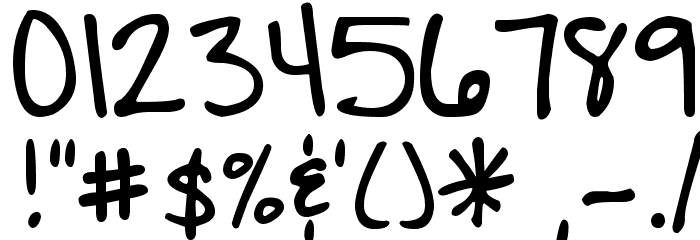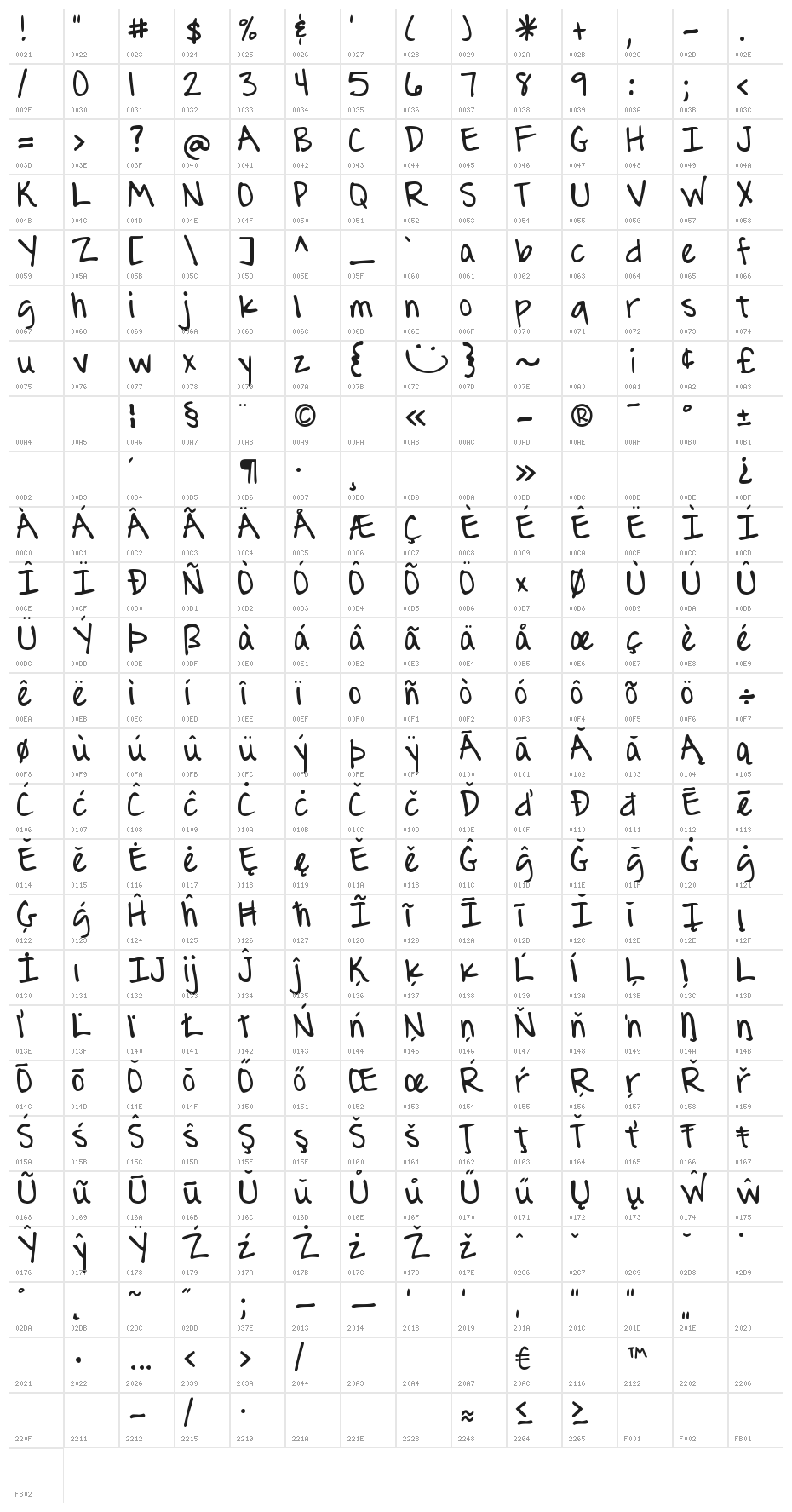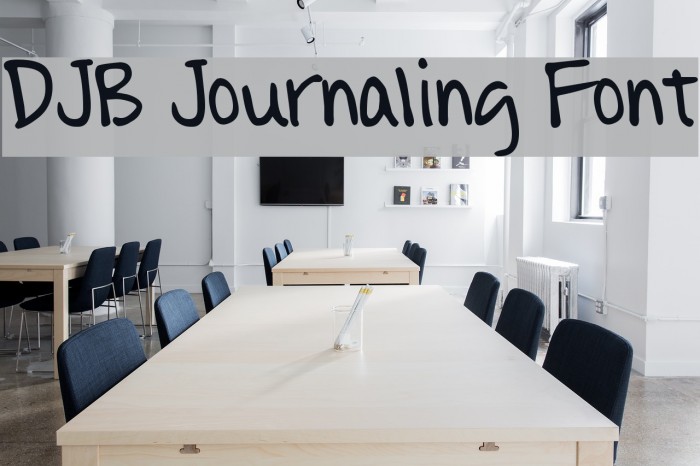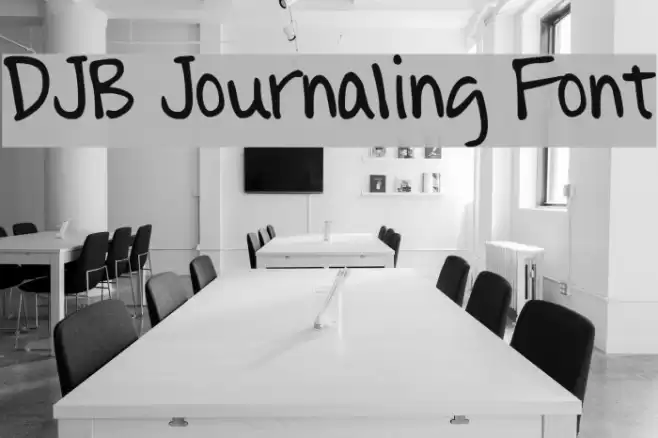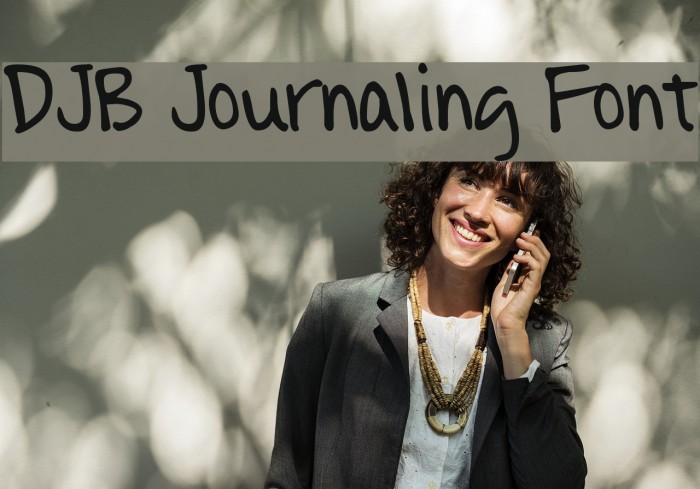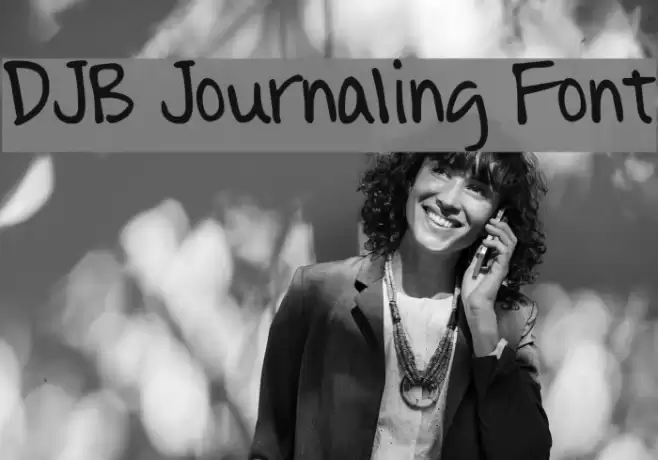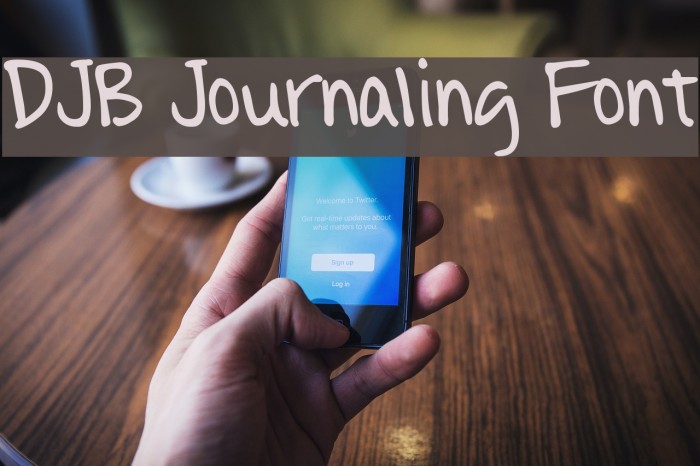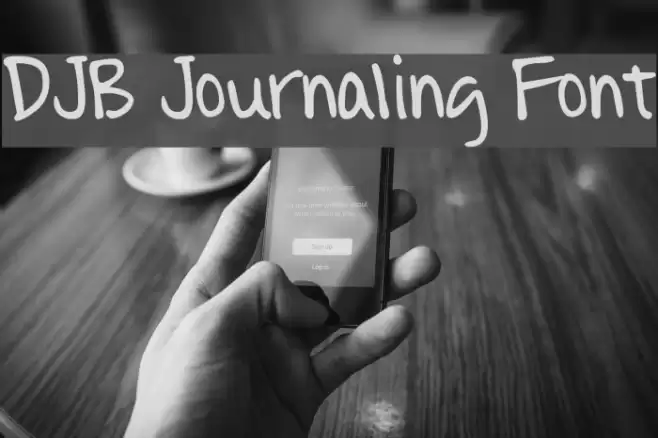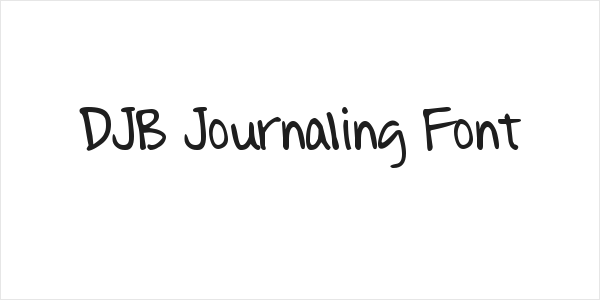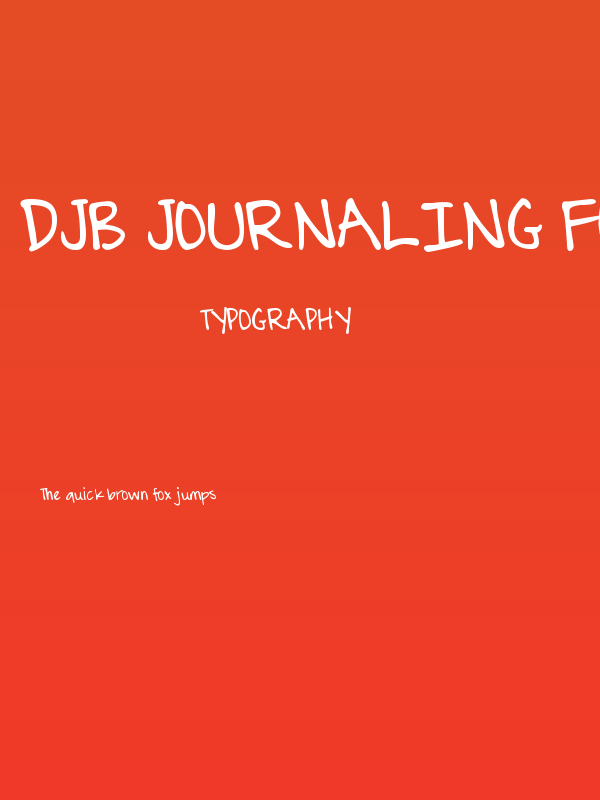
DJB Journaling Font Description
This font exudes a casual and playful handwritten style, reminiscent of personal journaling or note-taking. The characters are rounded and slightly irregular, giving them a warm and approachable feel. The uppercase and lowercase letters maintain a consistent flow, with smooth curves and a slightly tilted orientation that adds to the informal aesthetic. Numbers and special characters are crafted with the same playful touch, ensuring a cohesive look across all text. This font is perfect for projects that require a personal touch, such as invitations, greeting cards, or scrapbooking. Its legibility and charm make it suitable for both digital and print media.
| Use Case | Headlines, Informal text, Personal projects |
| Proposed Projects | Ideal for personal journaling, invitations, greeting cards, and scrapbooking. |